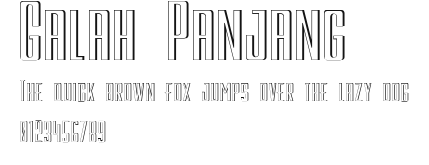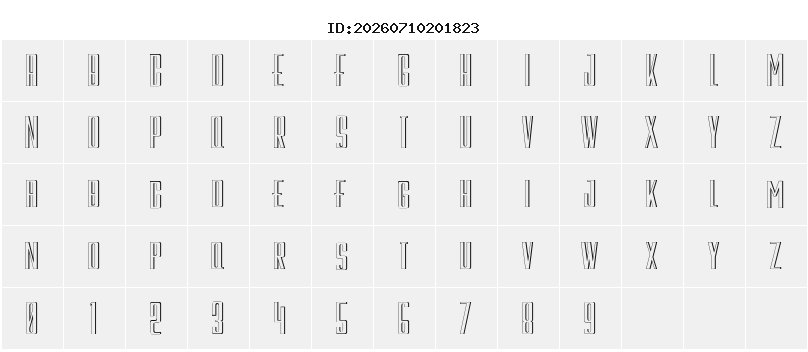
• Font Name: Galah Panjang
• Full Font Name: Galah Panjang
• Designer: cenz qobbal
About Galah Panjang.ttf
Galah Panjang.ttf is a modern, elegant sans-serif font designed for ultimate readability and visual harmony. Perfect for branding, headlines, web design, and print materials.